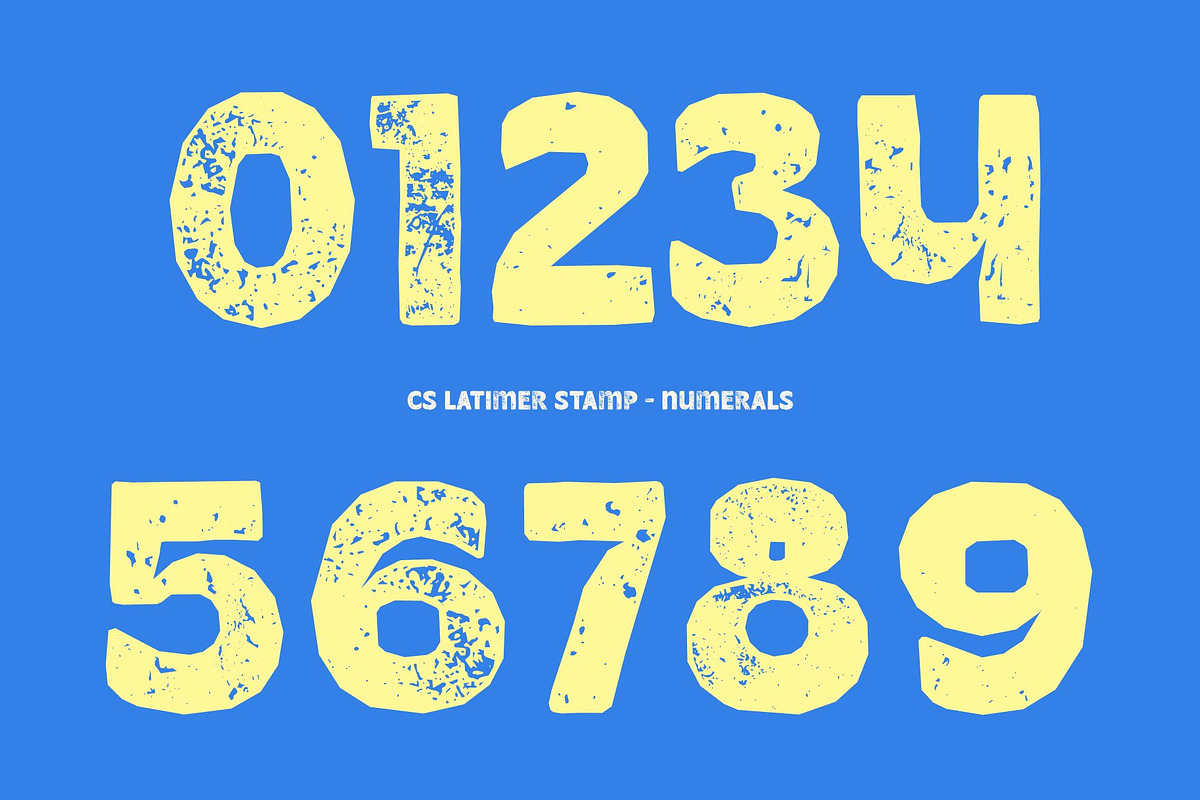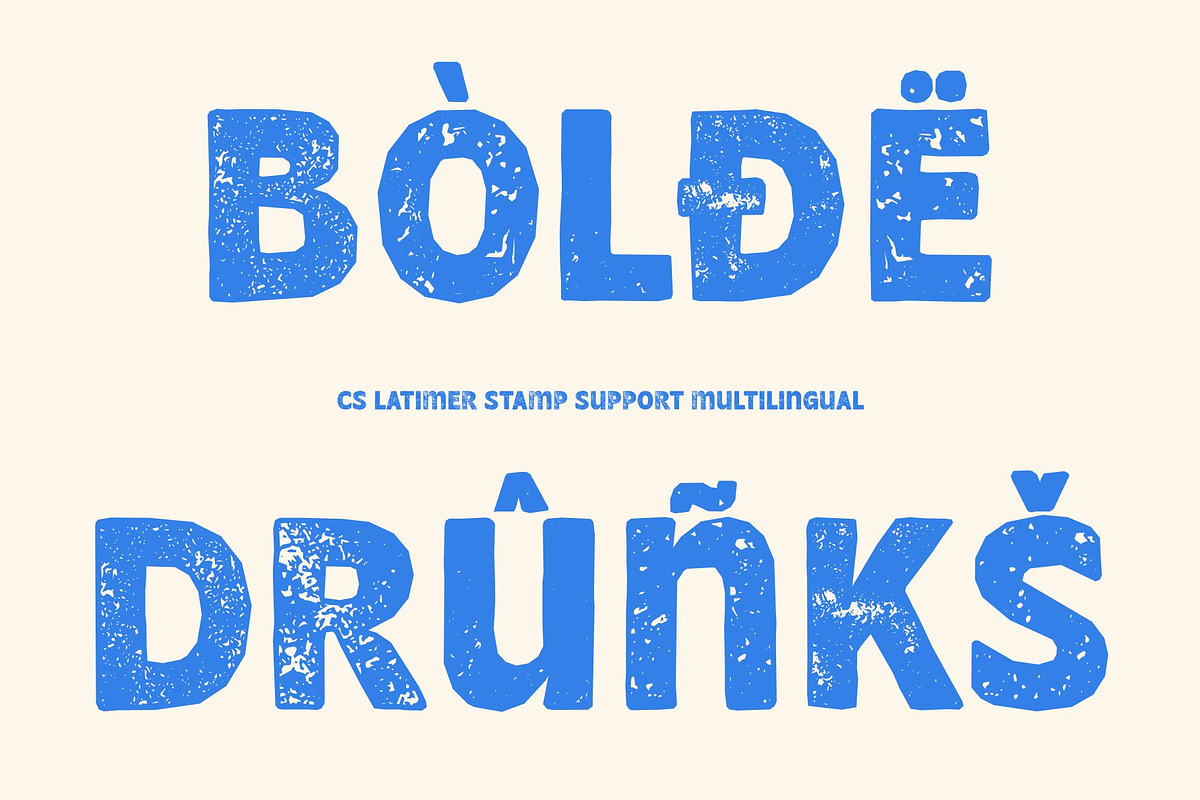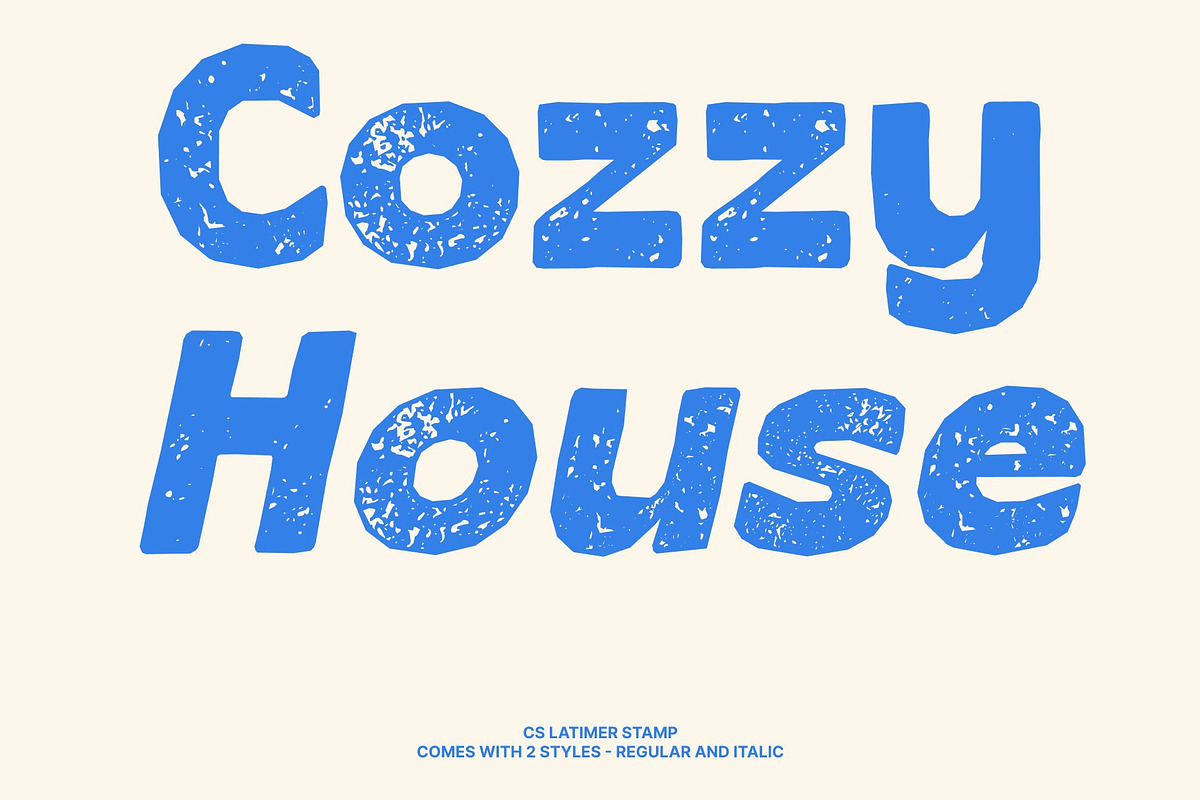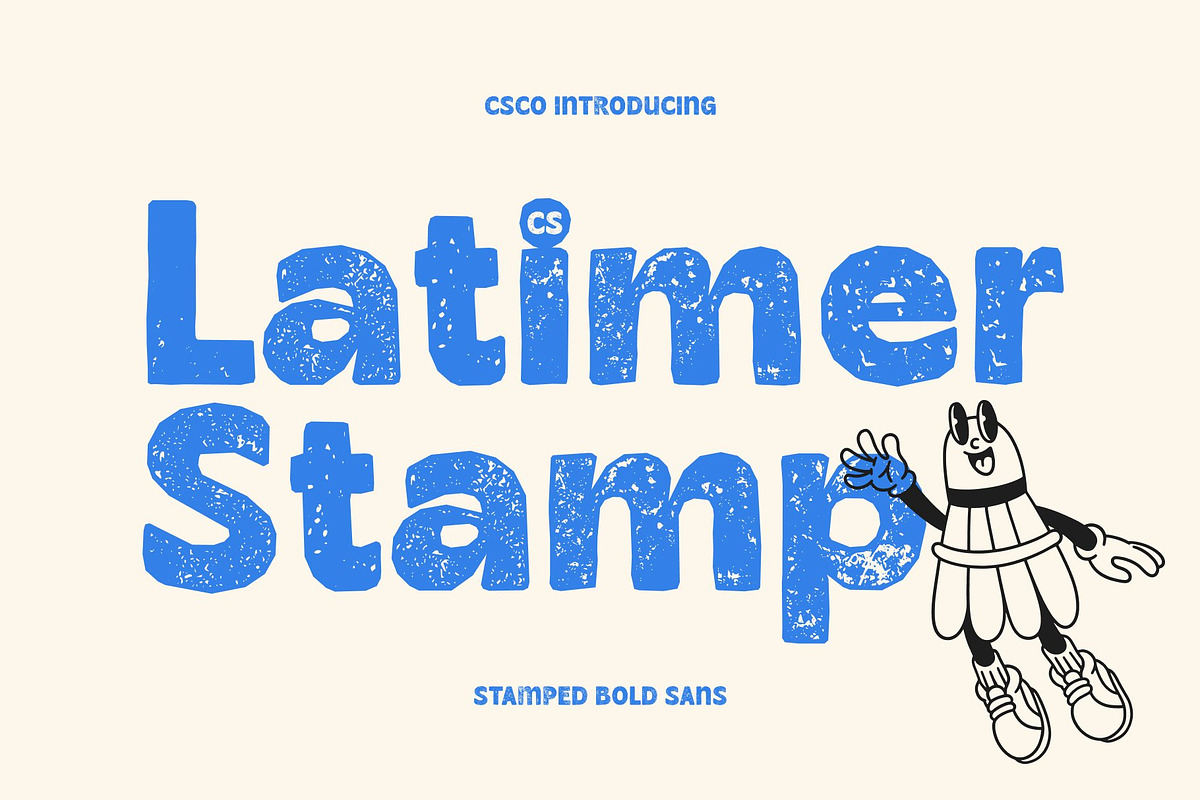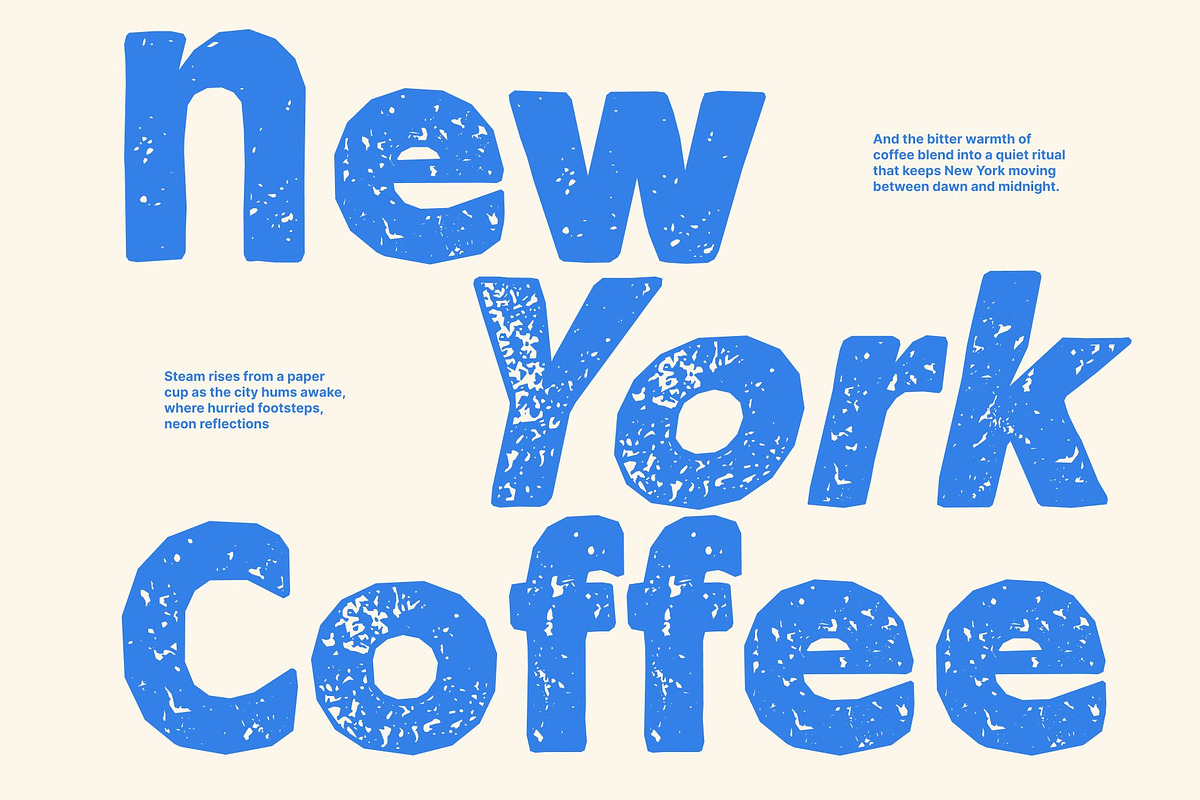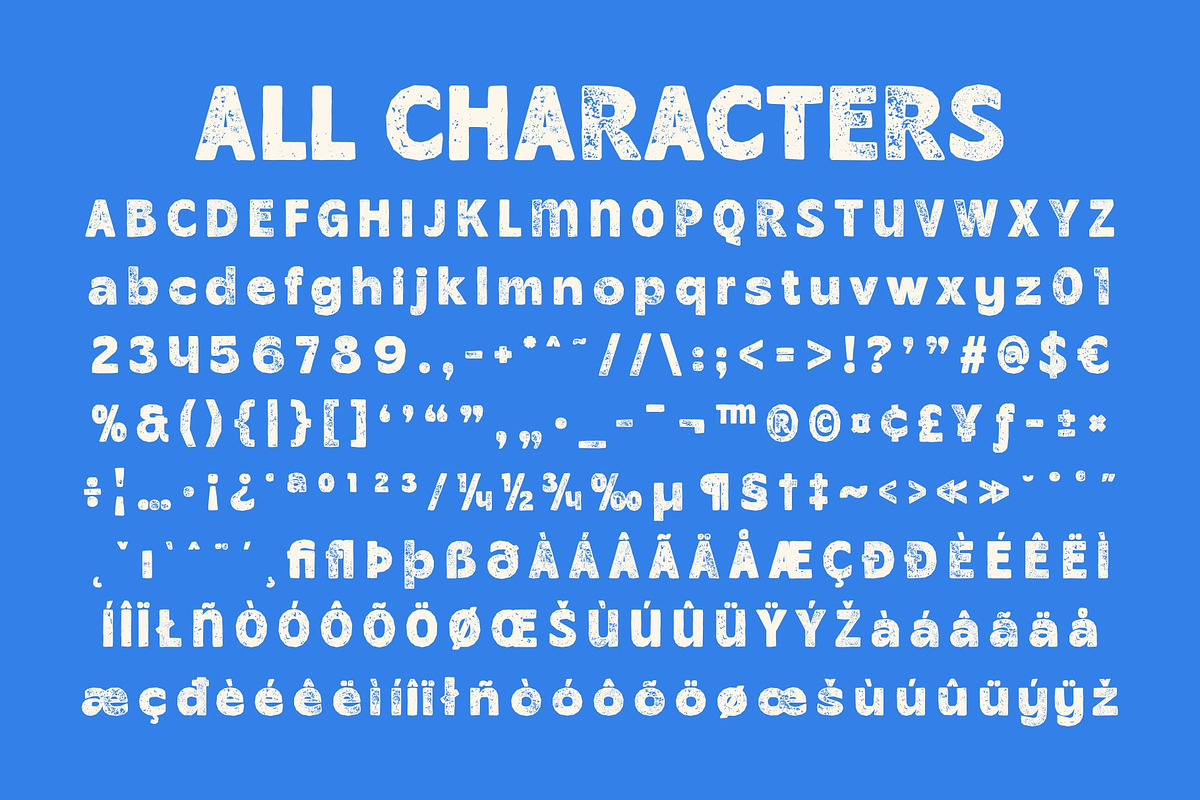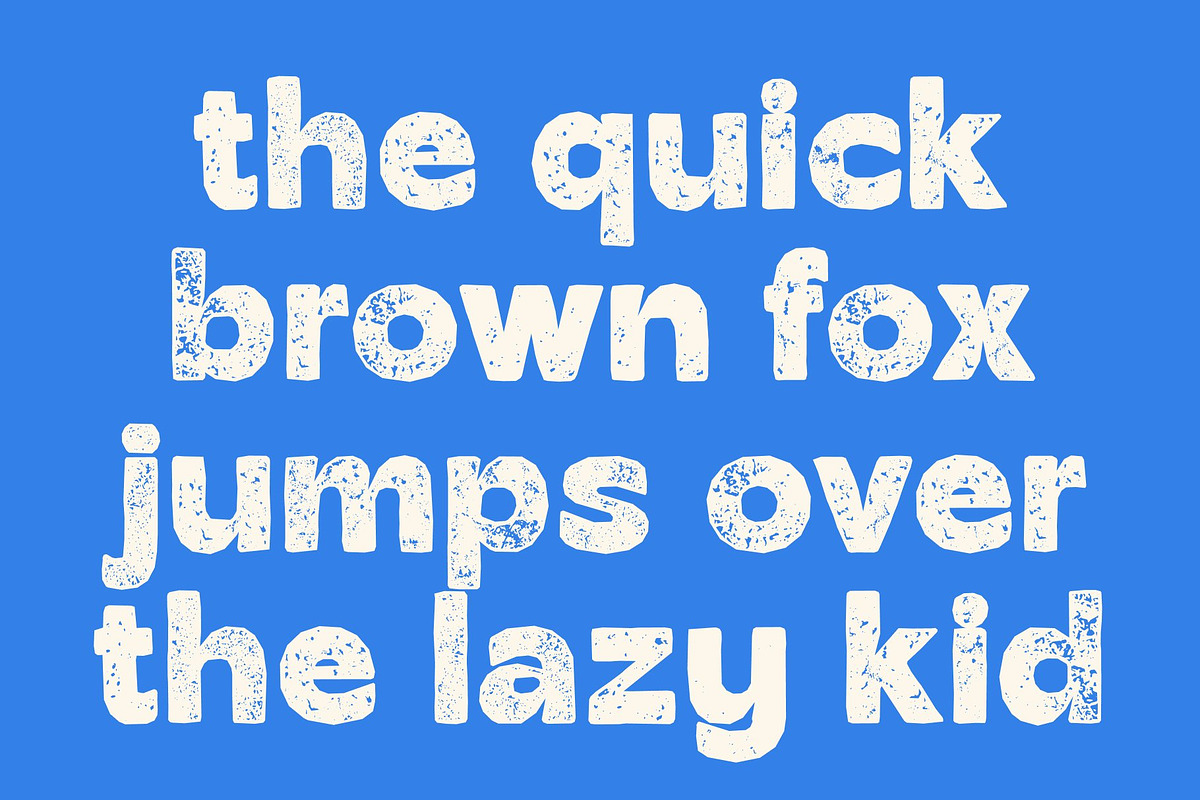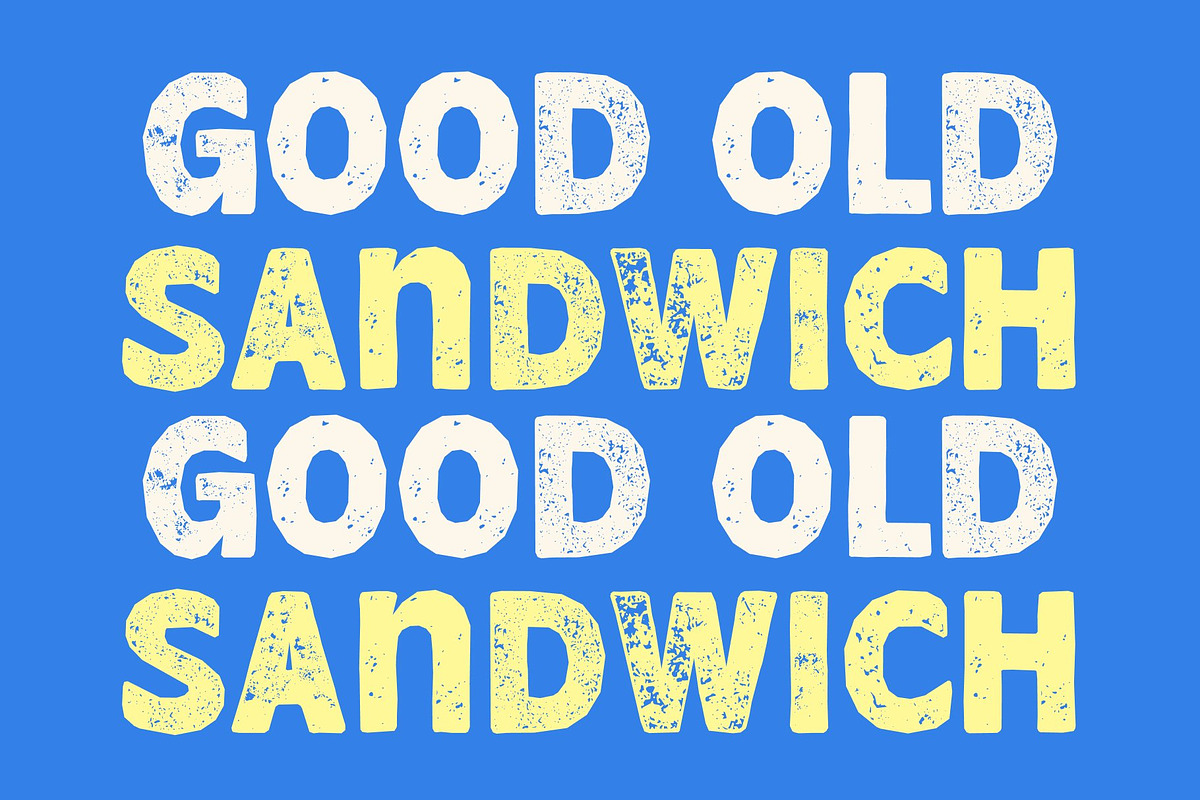
CS Latimer Stamp
CS Latimer Stamp – Retro Font: A Bold Fusion of Vintage and Modern Style
Classic Sans Serif with Stamp Texture This is a bold and dynamic sans-serif font that blends vintage energy with a modern edge. Enhanced with a stamp effect, the letterforms gain subtle distress, textured edges, and an organic inked finish, creating a perfect balance between retro charm and contemporary clarity.
Bold Letterforms with Playful Character Featuring thick strokes and confident shapes, this font stands out effortlessly in any composition. The slightly rounded edges and fluid structure add warmth and personality, while the stamped texture introduces a handcrafted feel that enhances its nostalgic appeal.
Perfect for Retro Branding and Advertising This font shines in branding, posters, packaging, and product labels that need a distinctive vintage voice. Its retro-funky personality brings life to bold logotypes and promotional materials, helping designs feel memorable and expressive.
Versatile for Creative and Digital Projects This font works beautifully across music posters, event flyers, merchandise, and social media graphics. By combining modern structure with a vintage print aesthetic, it delivers a playful, nostalgic, and eye-catching typographic style that feels fresh and timeless at once.
CS Latimer Stamp Regular
CS Latimer Stamp Italic